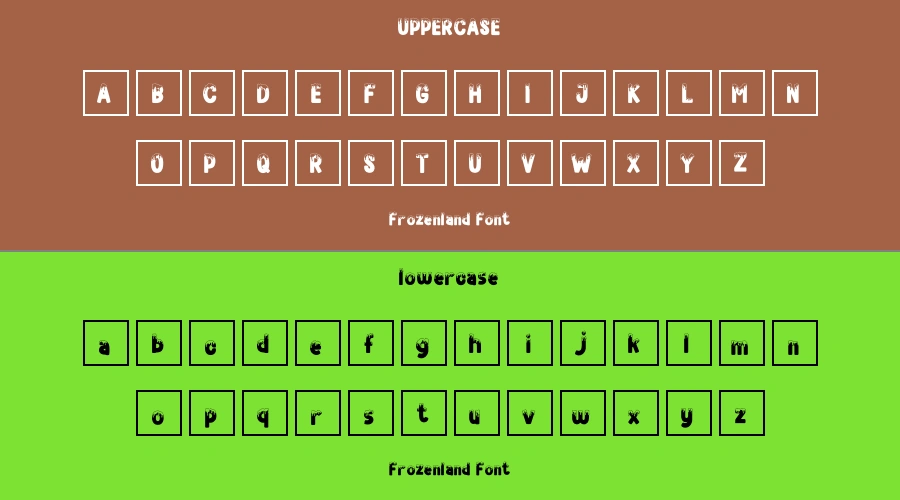
About Frozenland Font
Frozenland Font stands out for its distinctive combination of subtle details and exceptional clarity. Ideal for ceremonial invitations, it provides the longevity and technical mastery that professional projects demand. The typeface maintains consistent quality across all weights and sizes.
Key features include refined flourishes and practical case-sensitive forms, enhancing typographic expression. In specification lists applications, Frozenland Font demonstrates exceptional archive stability. The terminal style and artistic merit contribute to its distinctive character and professional appeal.
Frozenland Font |